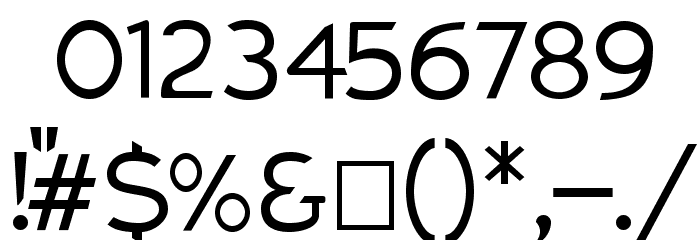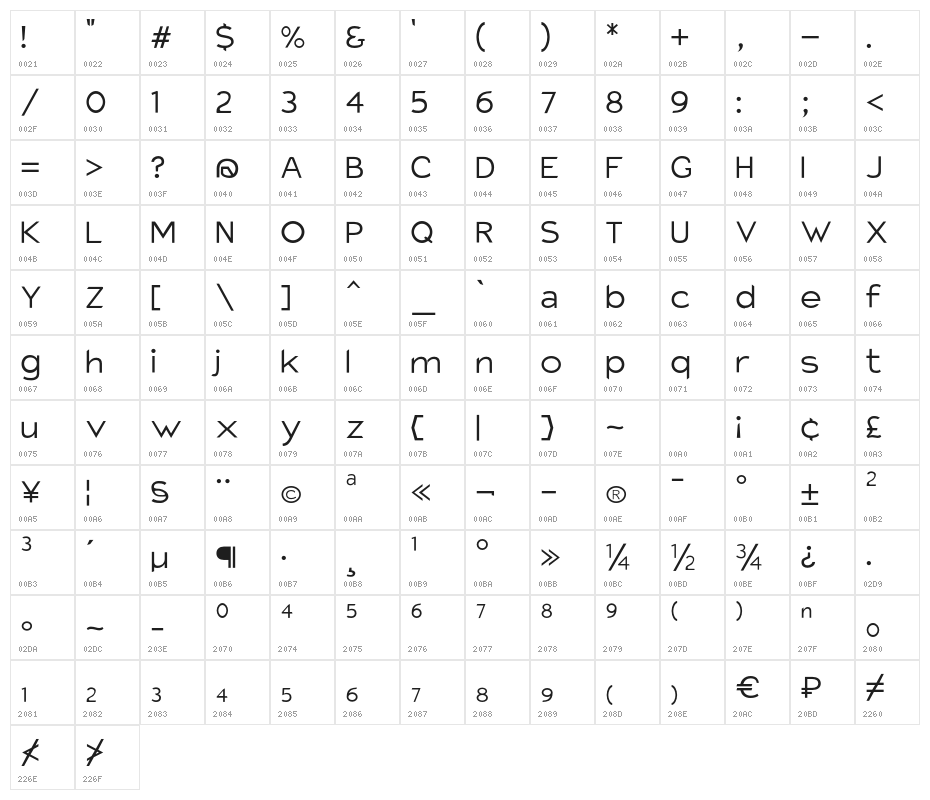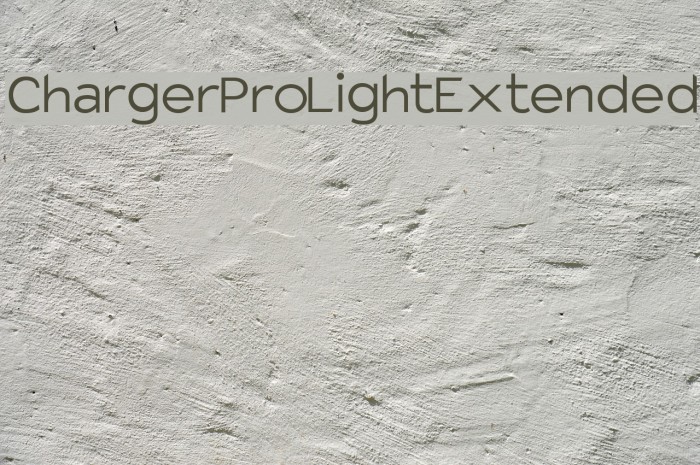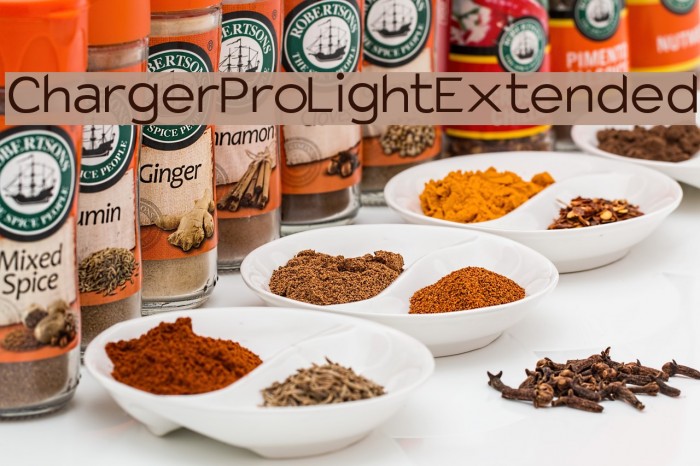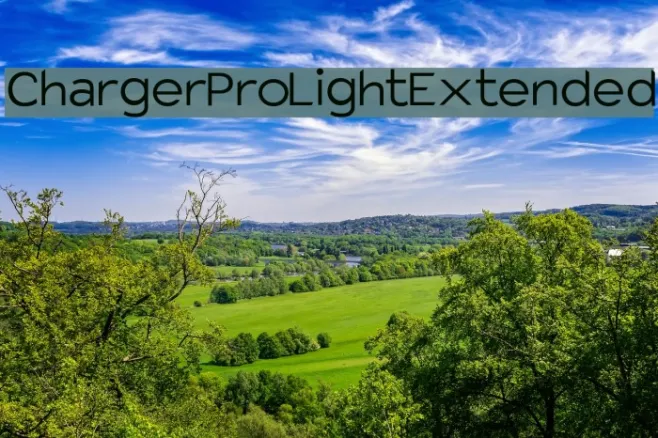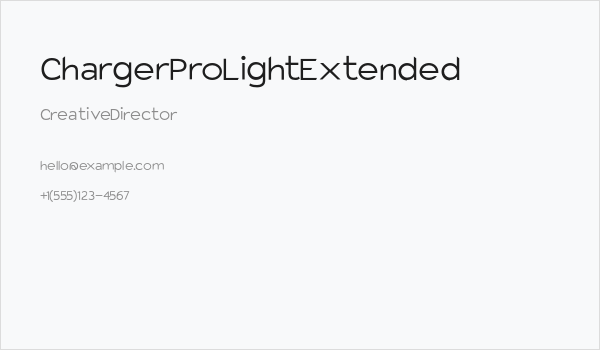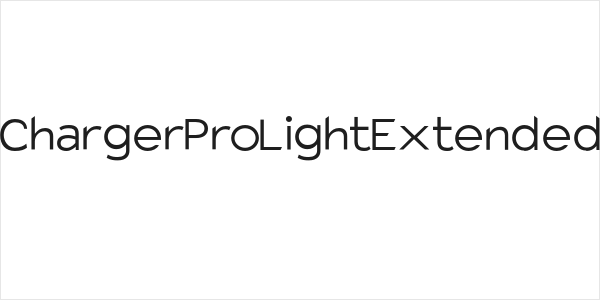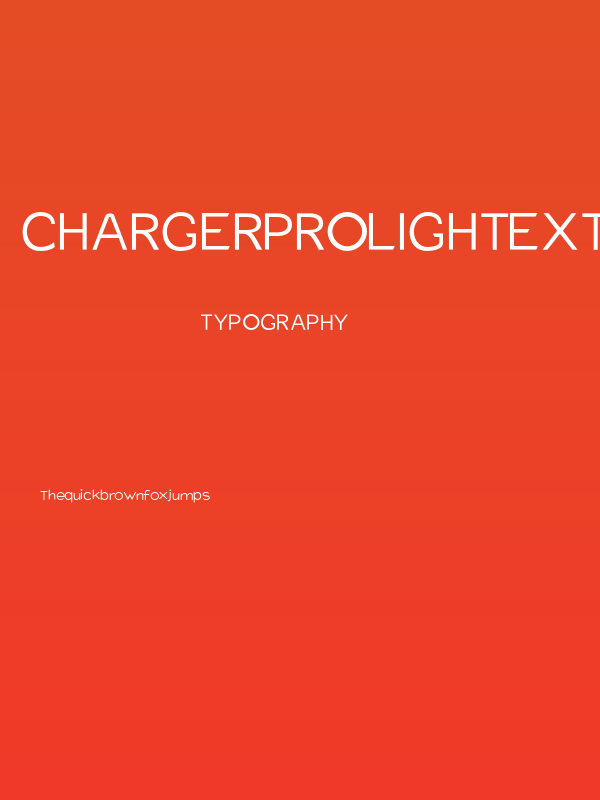
Charger Pro Light Extended Font
Charger Pro Light Extended Description
This font features a clean and modern sans-serif design with a light weight and extended width. The characters are well-balanced with a geometric structure, making it highly legible. The uppercase letters are bold and assertive, while the lowercase letters maintain a friendly and approachable appearance. The numerals are consistent with the overall style, offering clarity and precision. Special characters are distinct and integrate seamlessly with the rest of the font, ensuring versatility across various applications.
| Proposed Projects | Ideal for branding, advertising, and digital interfaces where clarity and modernity are essential. |